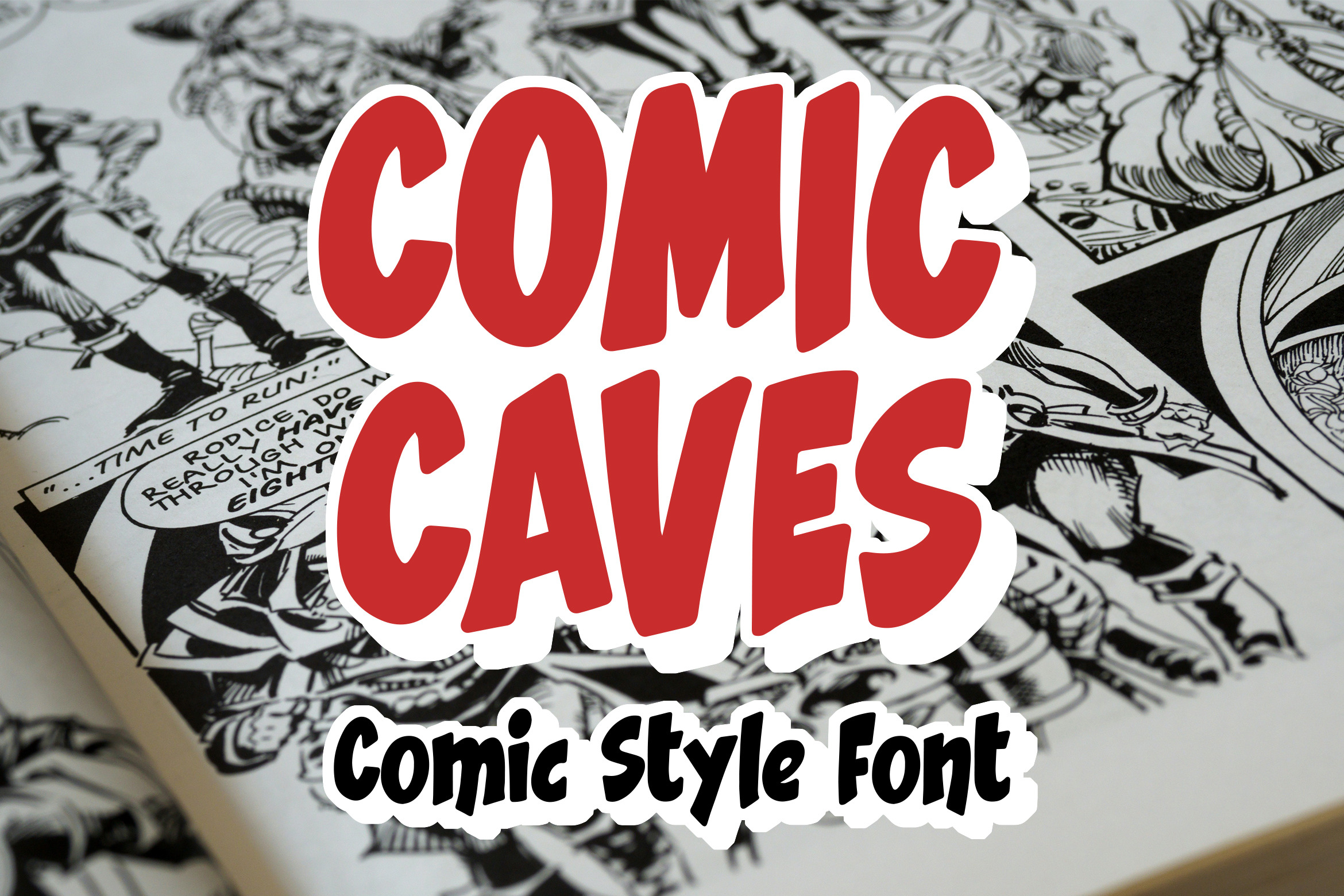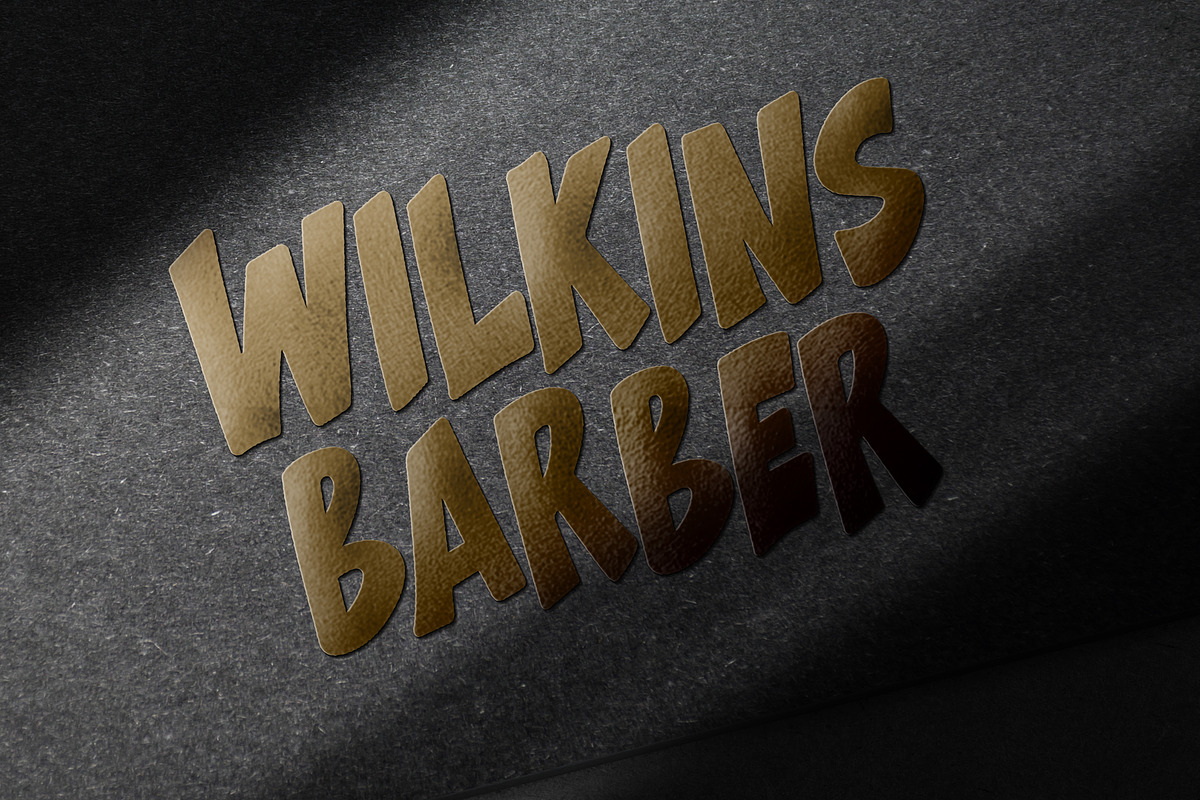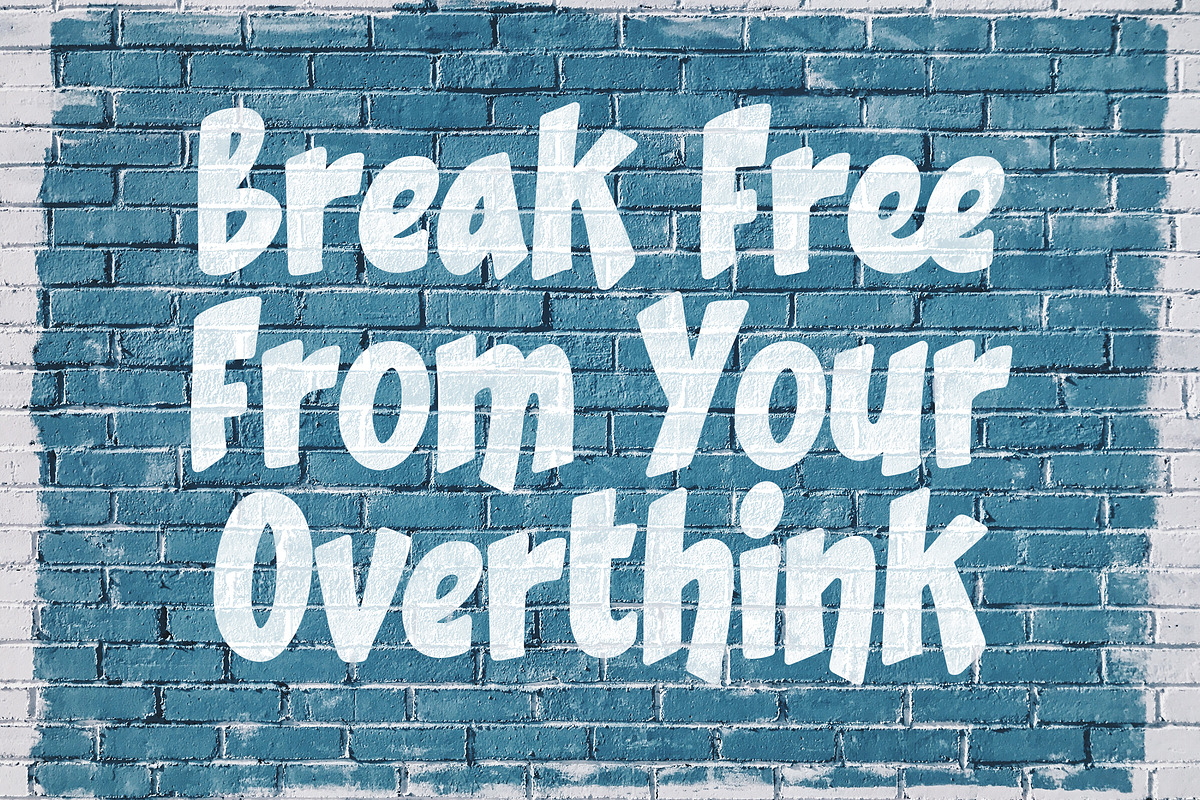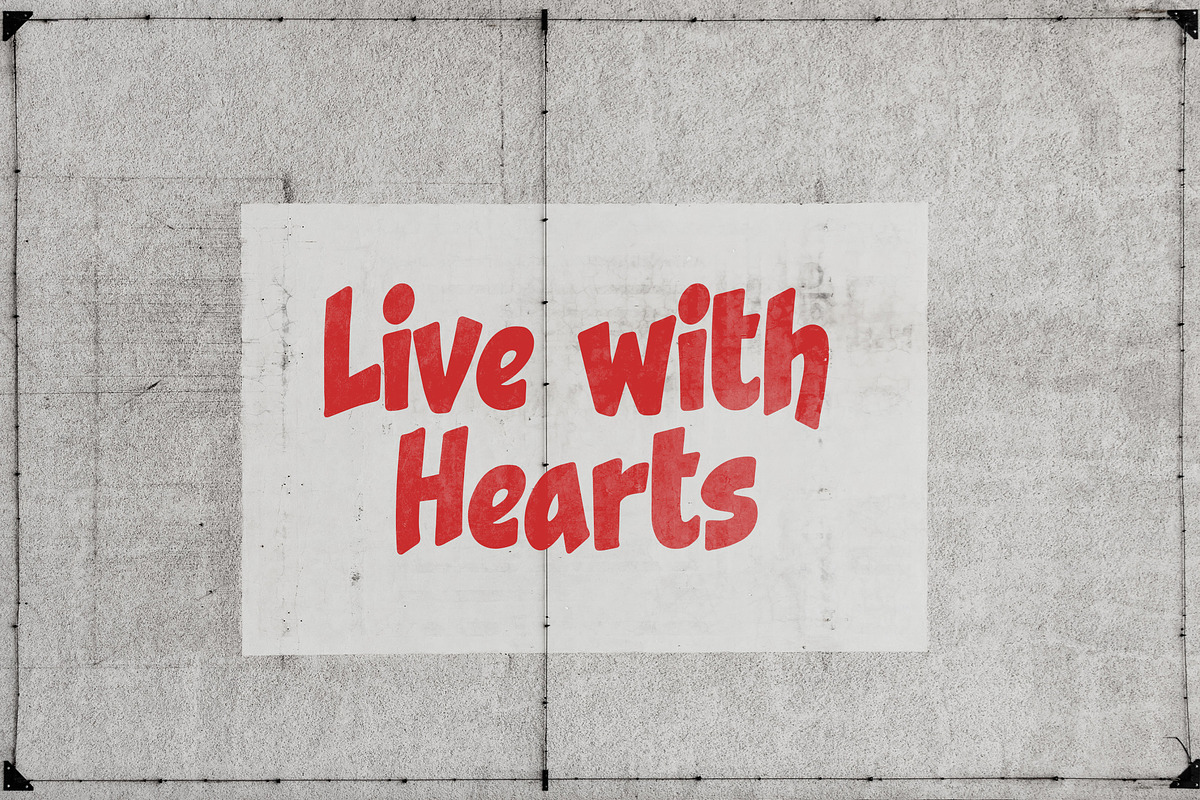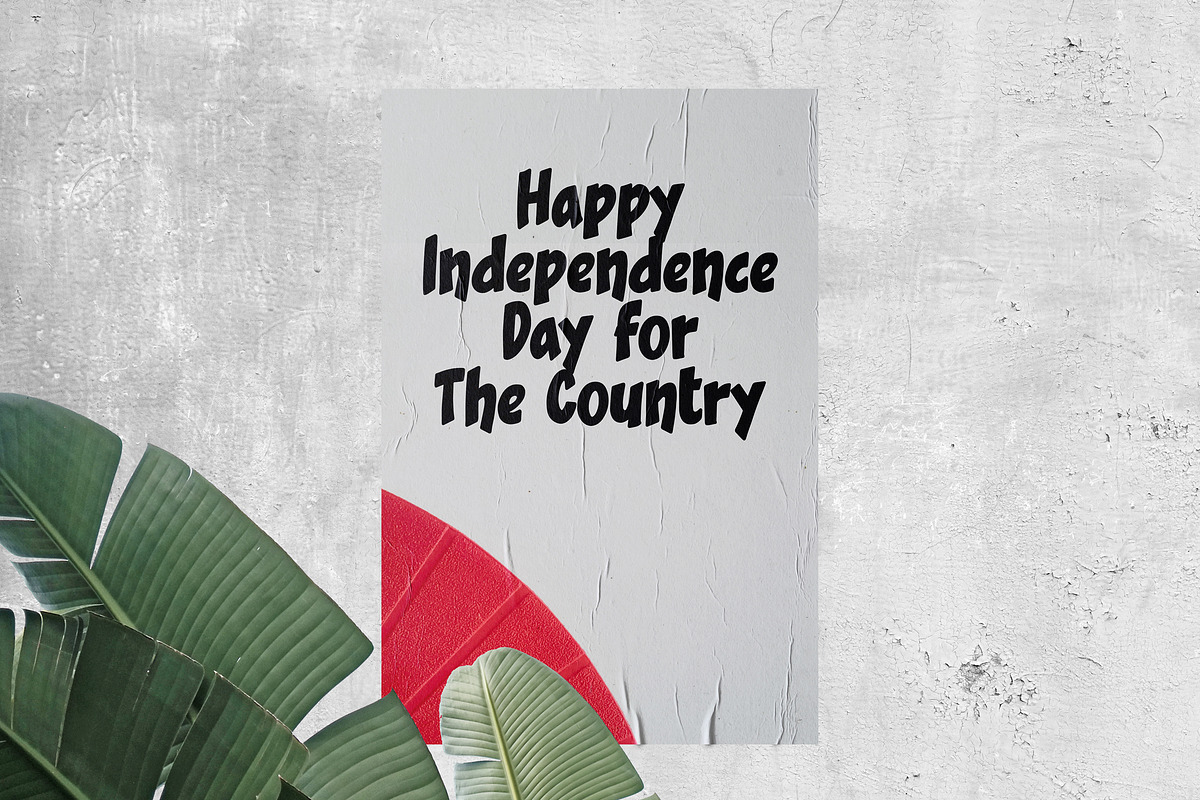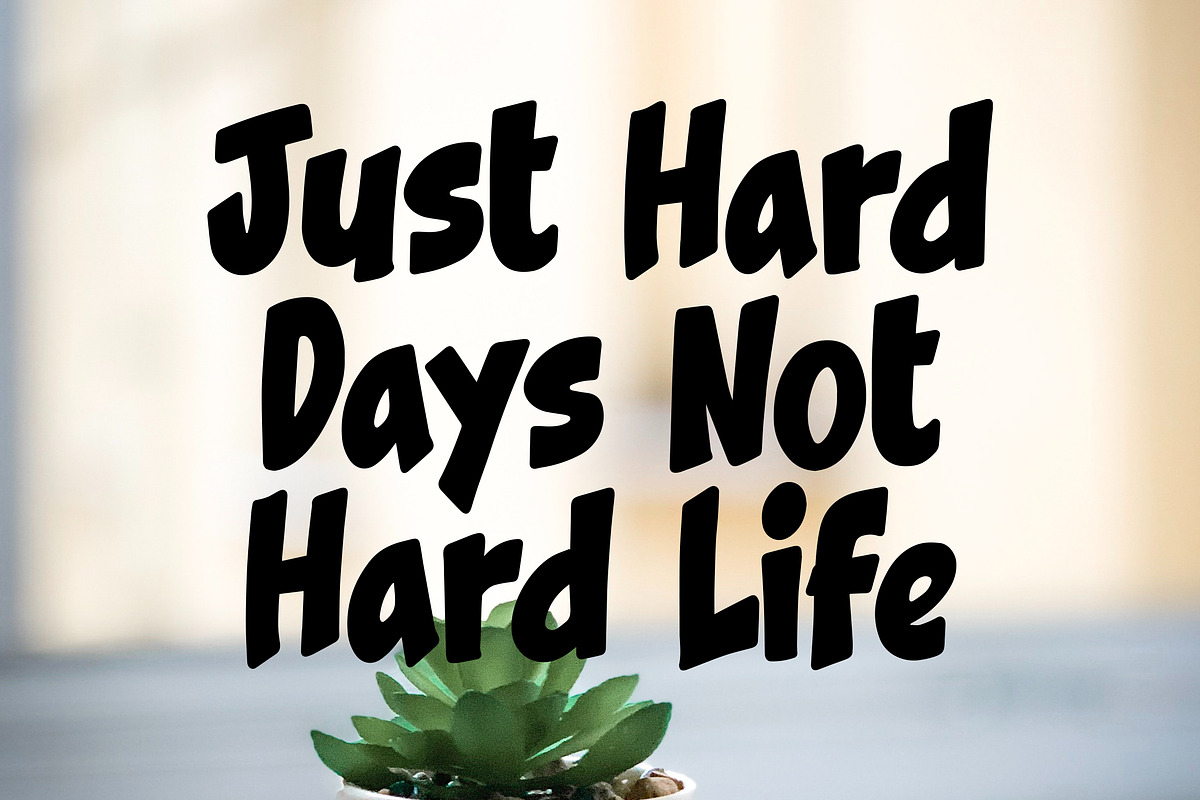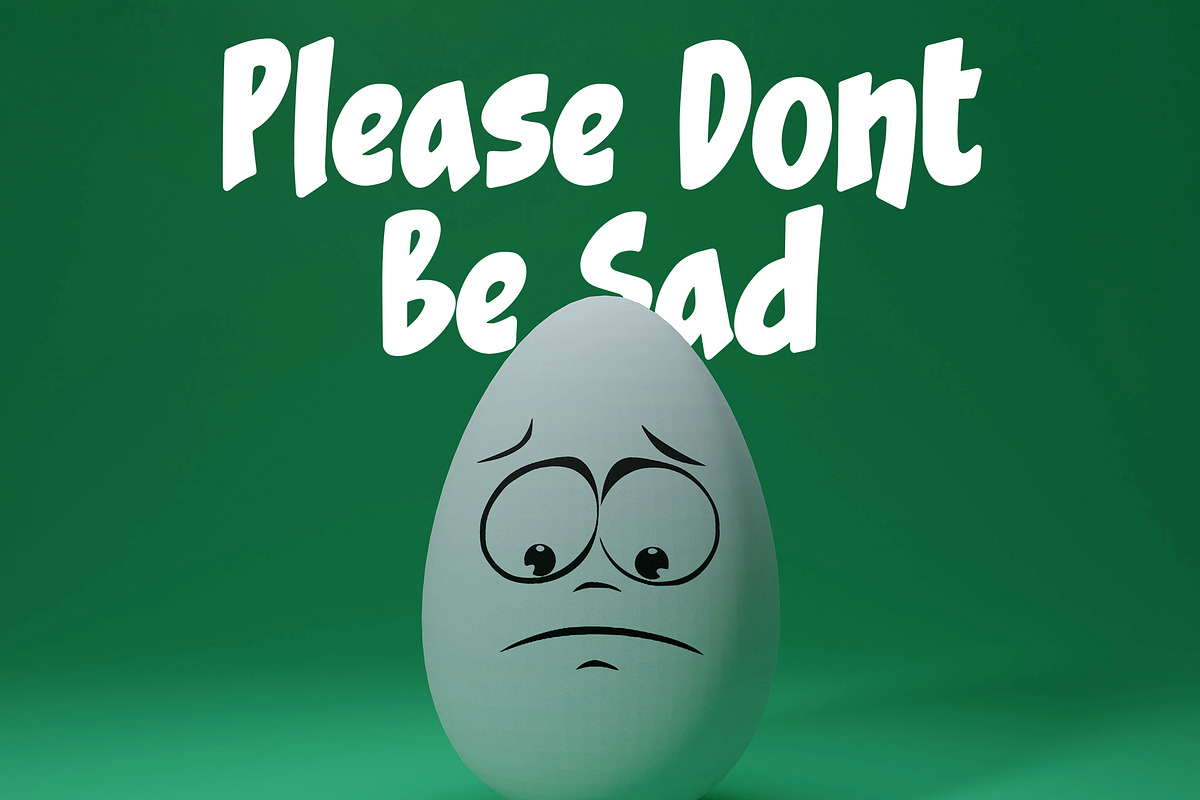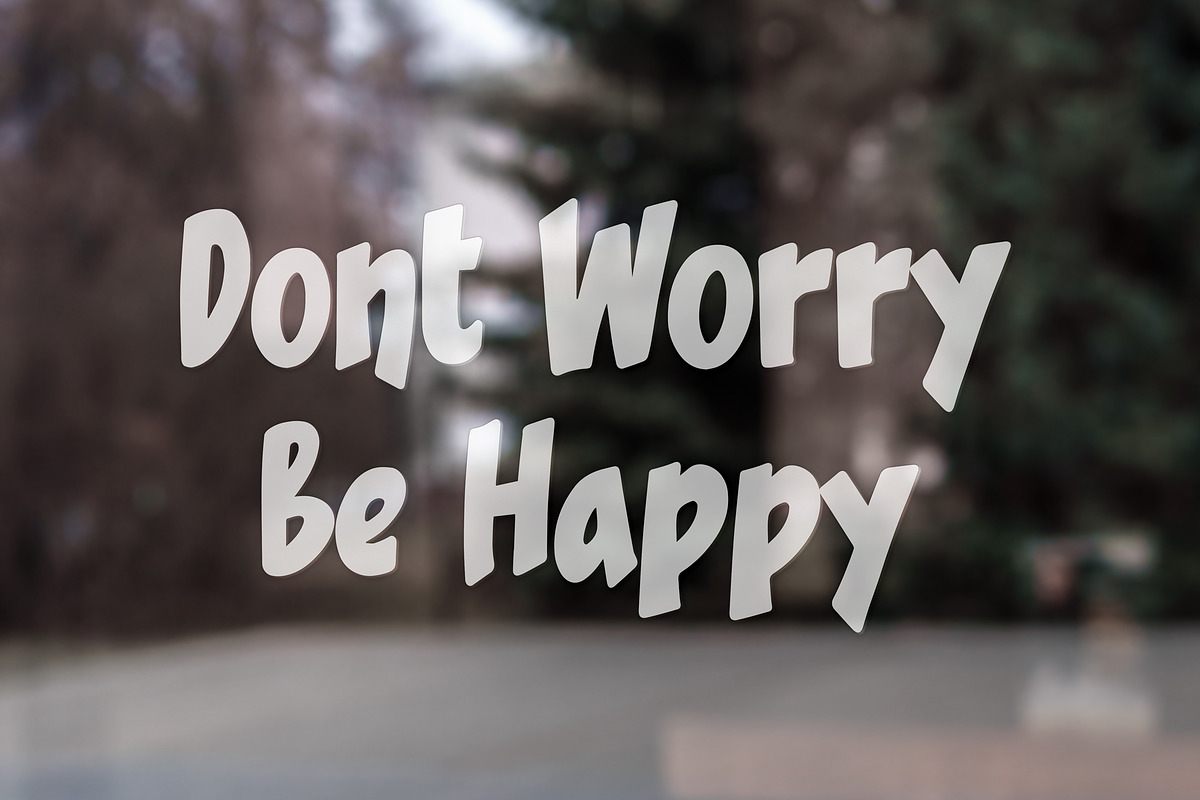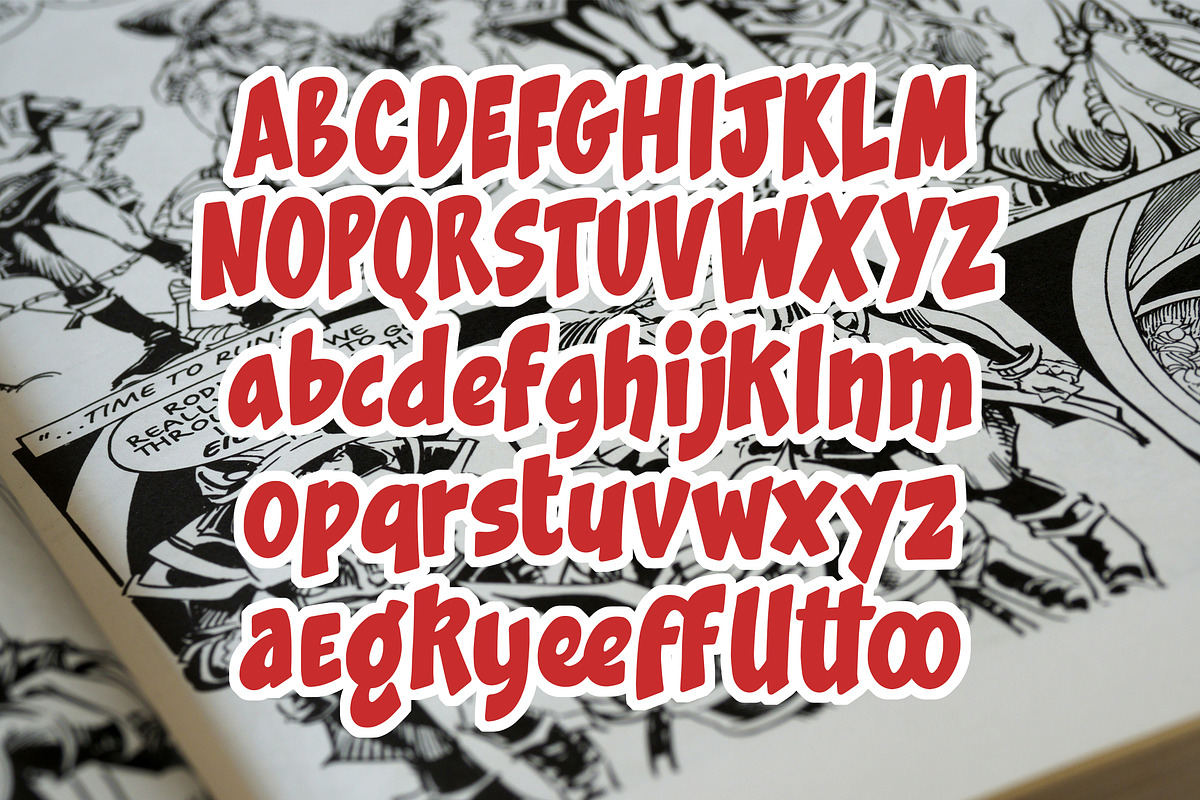
Comic Caves - Comic Style Font
Comic Caves - Comic Style Font contains a lowercase, uppercase, symbol, and also supports multi-language. There’s a lot of ligature in this font. Comic Caves - Comic Style Font also comes with ligatures, stylistic alternates and many more. this font suitable for fashion, branding, catalog and other design that you want.